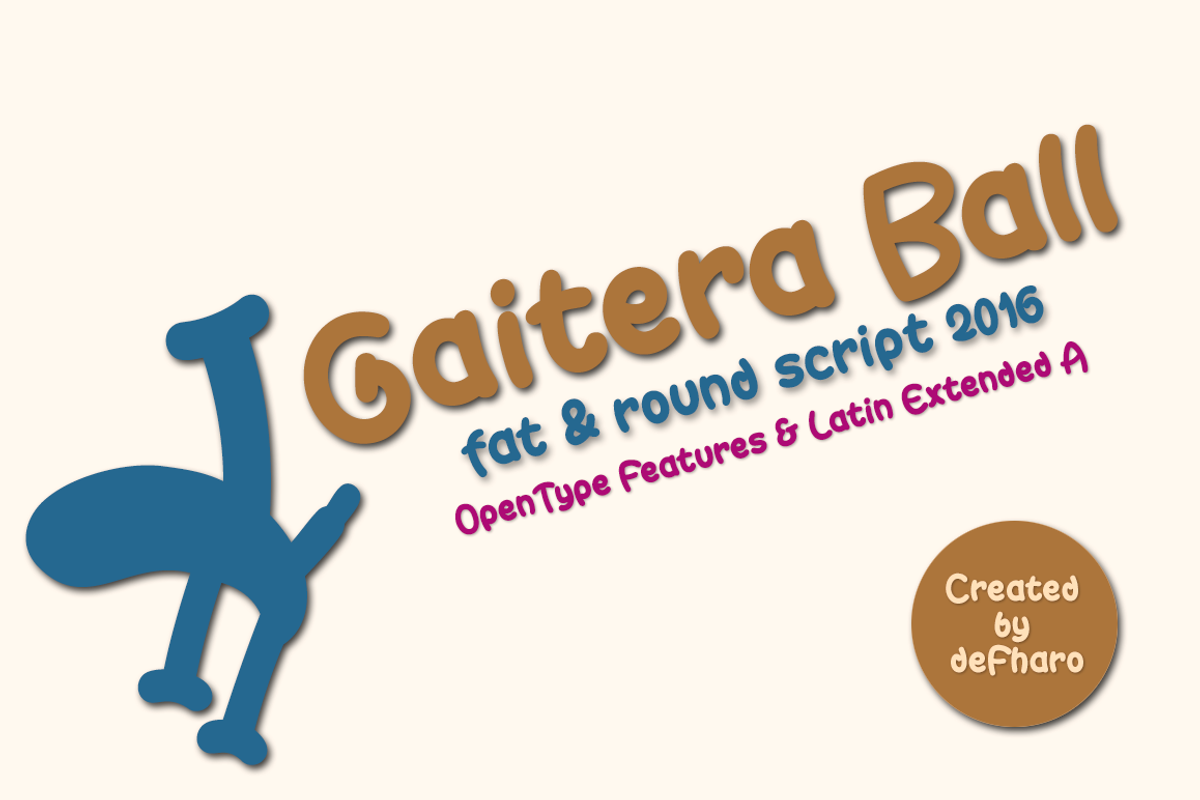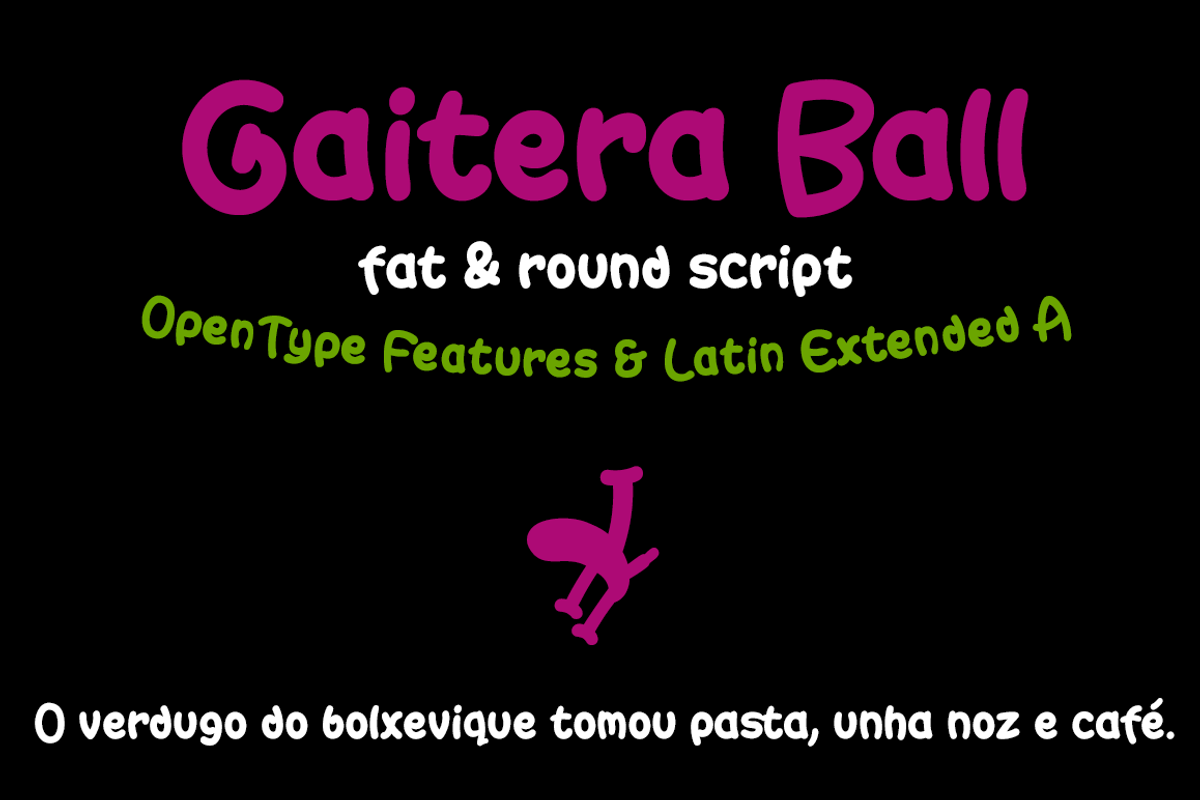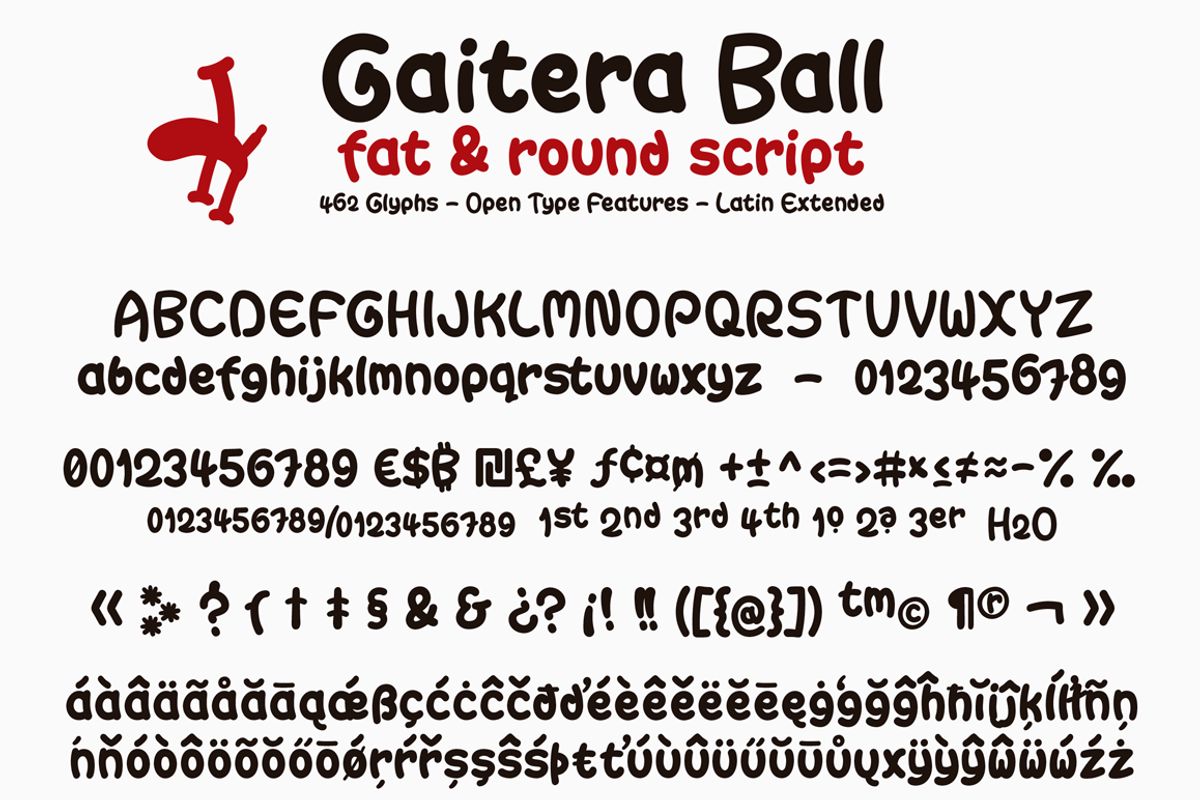
Gaitera Ball font
Gaitera Ball font by deFharo is a font selected for branding, posters, packaging, typography.
Why Gaitera Ball font is worth a look
Gaitera Ball font by deFharo fits naturally into Branding, posters, packaging, typography.